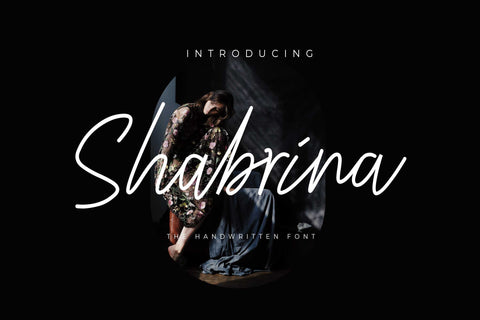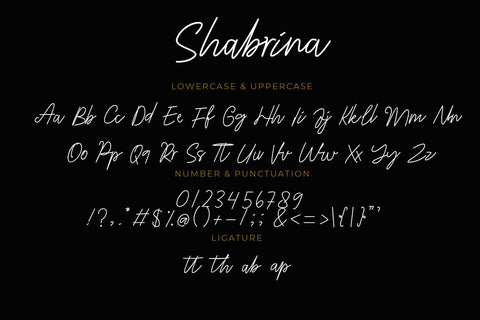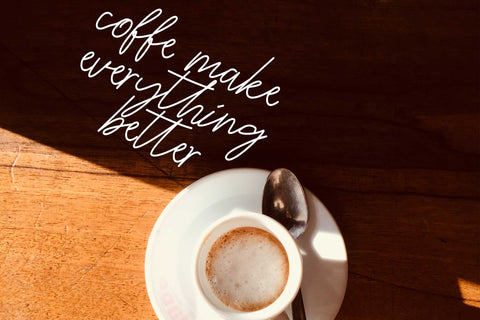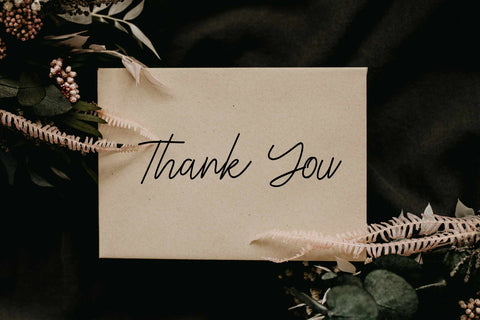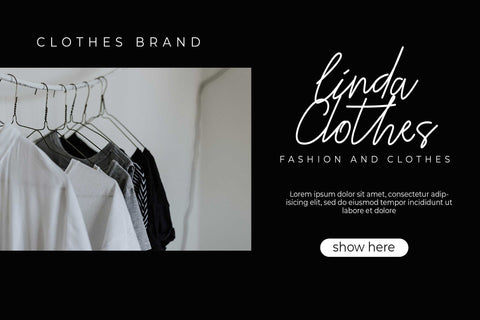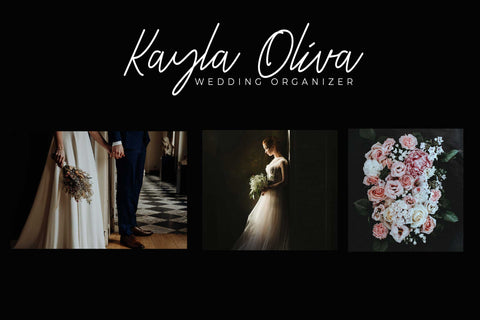
Shabrina-Handwritten font
Shabrina is a handwritten font designed with all my heart. This font is very soft and simple suitable for social media posts, greeting cards, business cards, logos and more. Shabrina is a PUA code which means you can access all the glyphs and sweeps easily !